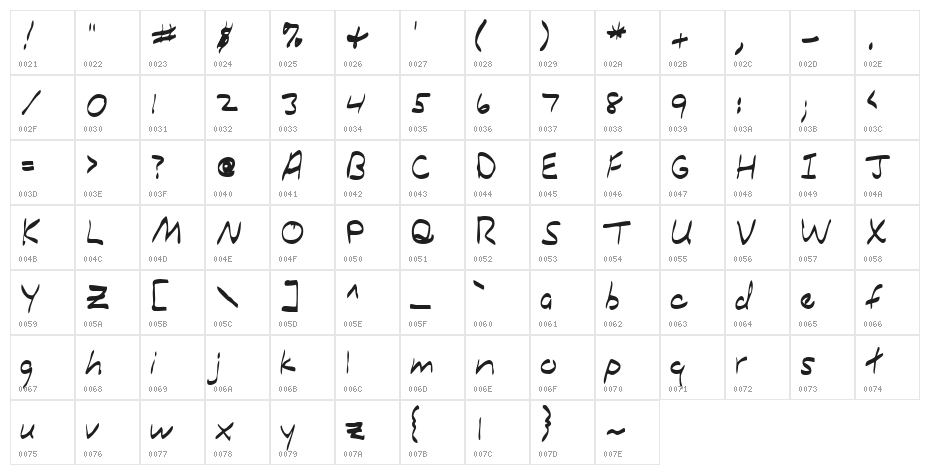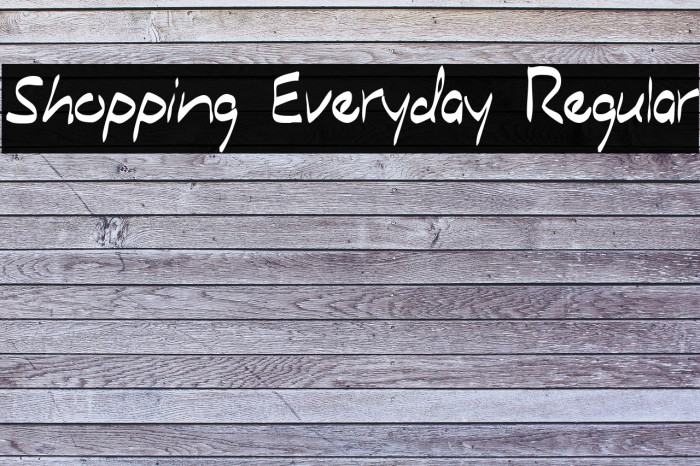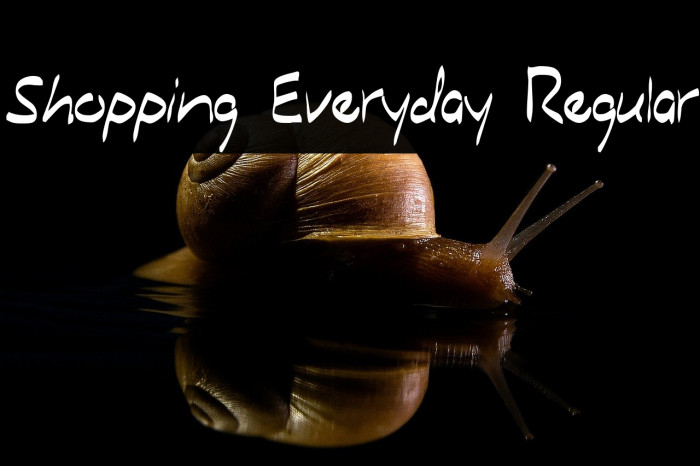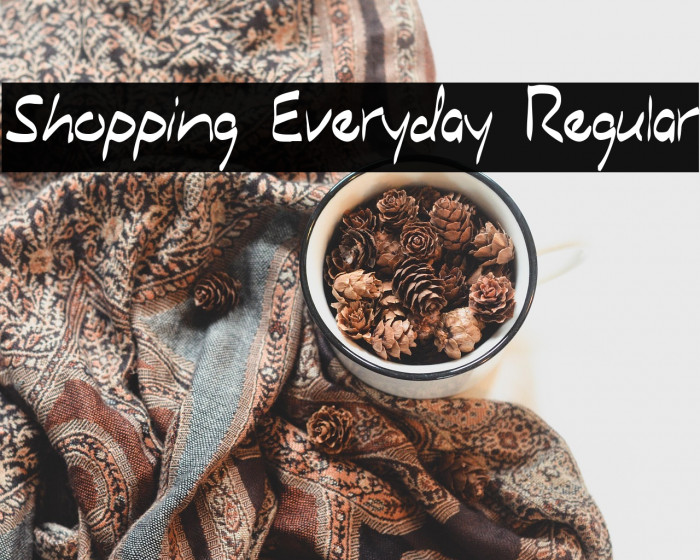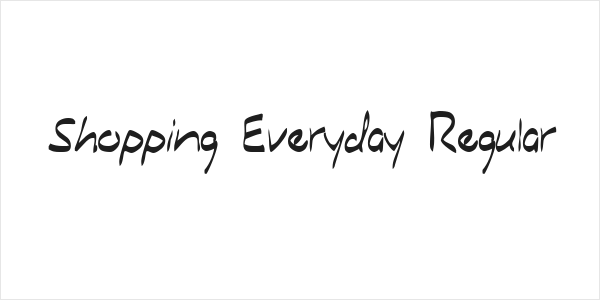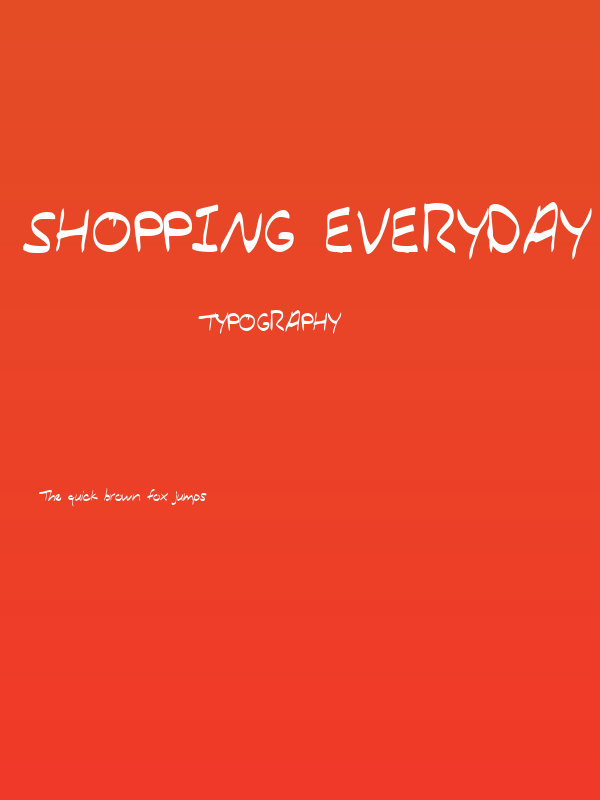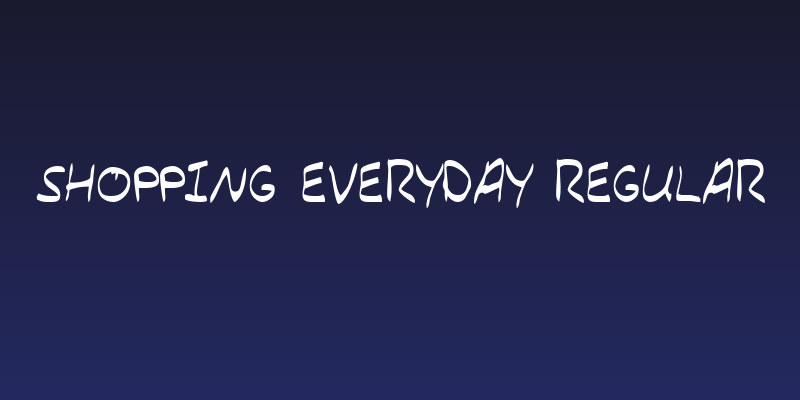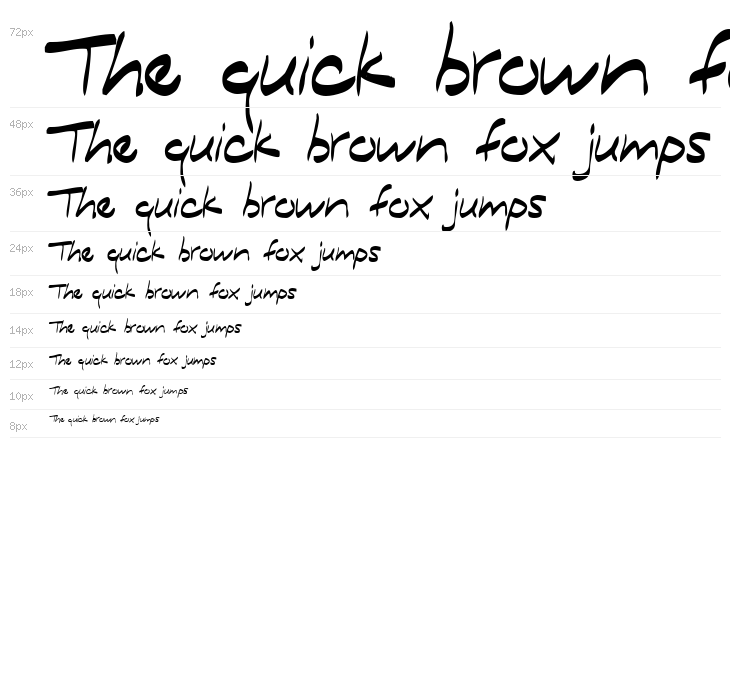
Shopping Everyday Regular Font
Shopping Everyday Regular Description
A handwritten, casual font with a playful and dynamic style, featuring irregular strokes and a slightly slanted appearance.
| Use Case | Logos, Headlines, Informal text |
| Proposed Projects | Greeting cards, informal invitations, personal branding. |